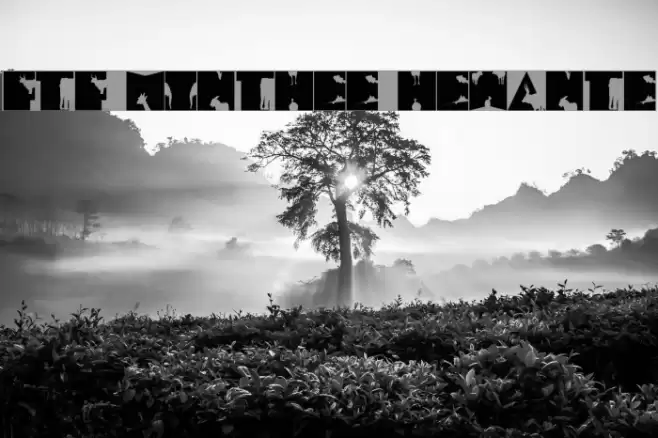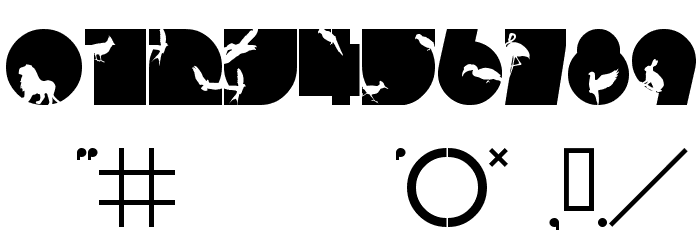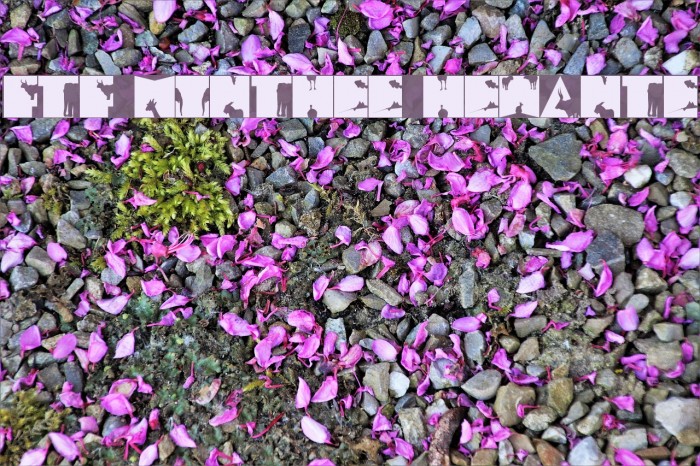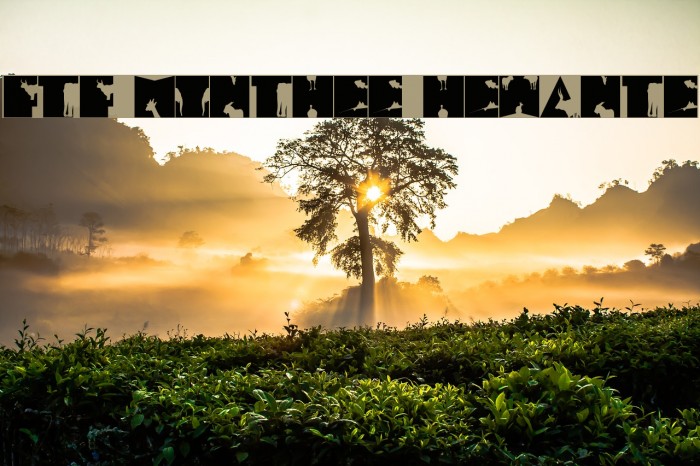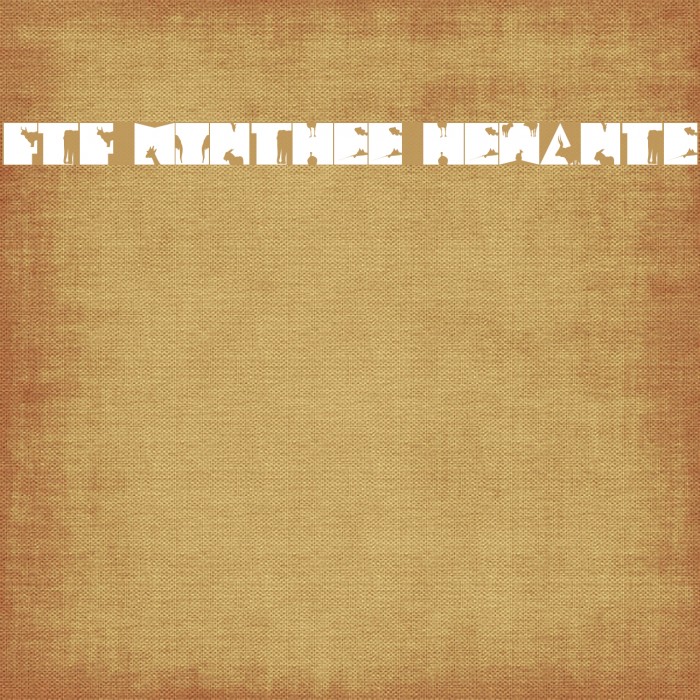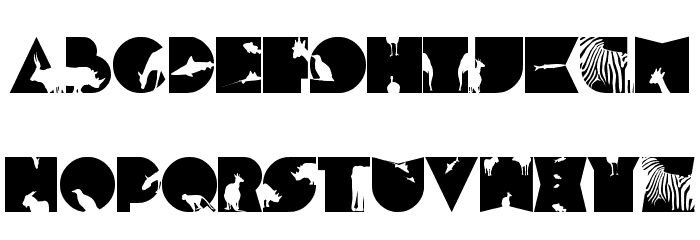
FTF Minthee Hewante Font
FTF Minthee Hewante Description
This font is a bold and decorative typeface featuring silhouettes of animals integrated into each character. The letters are uppercase and have a playful, whimsical style, with each character containing a unique animal shape, such as zebras, giraffes, and elephants. The design is visually striking, with high contrast between the solid black letterforms and the white animal silhouettes. This font is ideal for projects that require a fun and engaging visual element, capturing attention with its creative and artistic approach. The characters are wide and have a consistent weight, making them suitable for display purposes.
A bold, decorative font with animal silhouettes integrated into each character from Decorative fonts.
- Proposed Projects: Ideal for children's books, zoo advertisements, wildlife-themed posters, and playful branding projects.